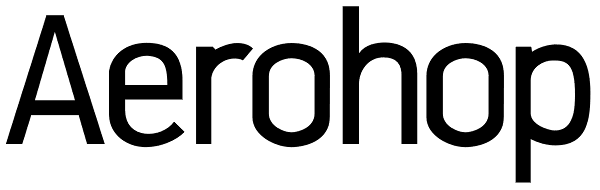
Aerohop
Aerohop is a contempory sans serif font with shades of non-contemporary design elements. A neo-classic face with a full character set, three weights, and italics. Great for headlines with character and body text that is orderly but not ordinary.